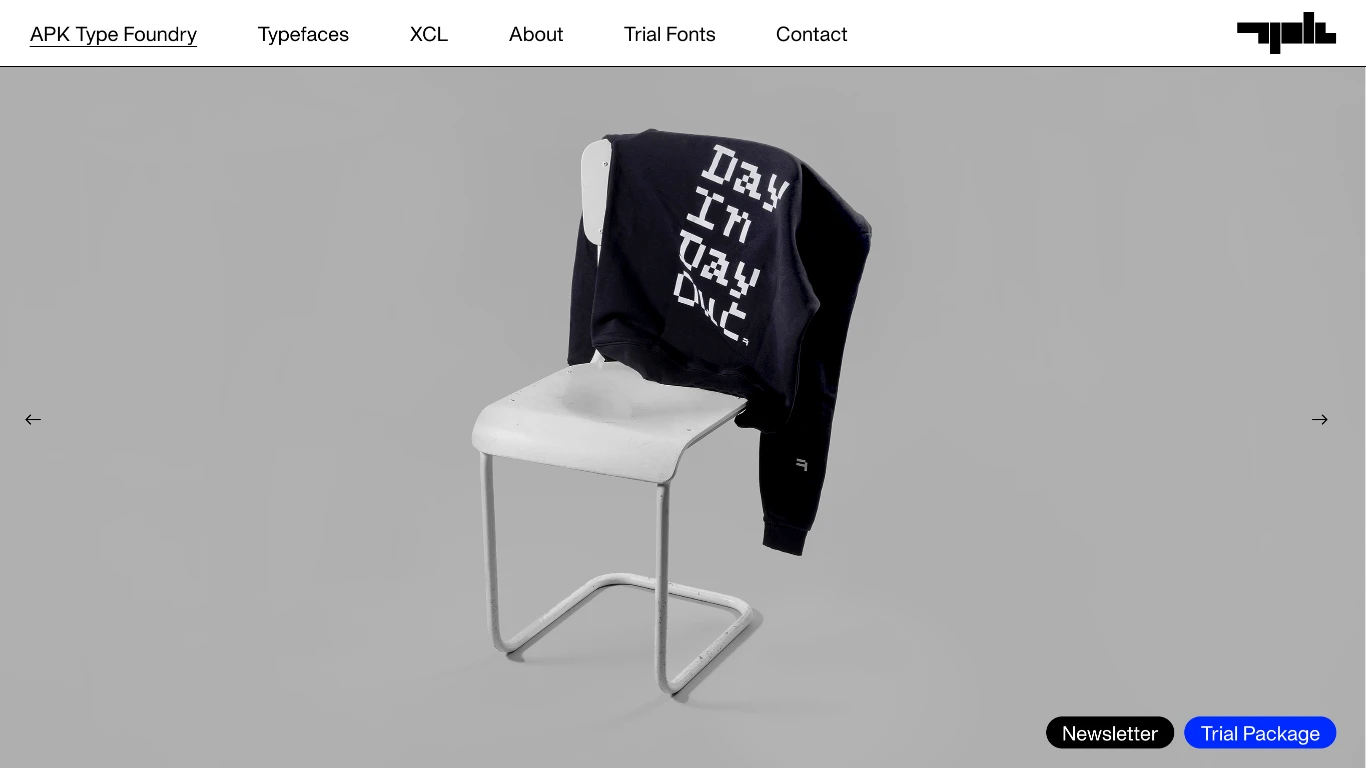
APK Type
Netherlands
2024
APK Type Foundry is an independent type foundry founded by Dutch design studio Autograph under the direction of Peter Korsman. They specialize in designing and offering distinctive typefaces and font families for both print and digital applications. Their notable typefaces include APK Protocol, a neo-grotesque influenced by 19th-century designs, and APK Reformas, a modern take on the International Typographic Style.